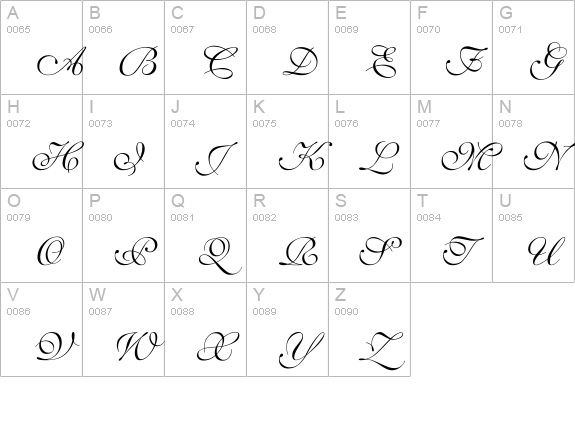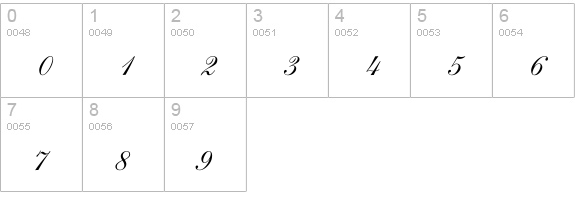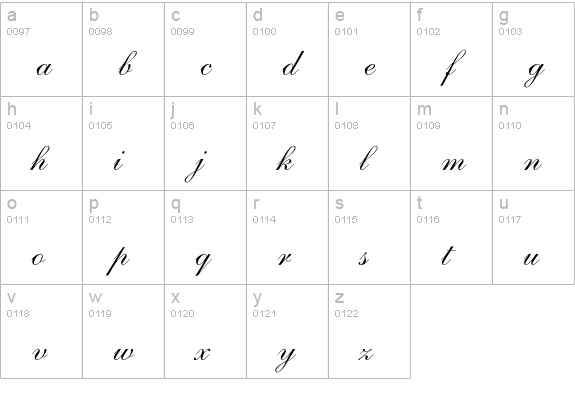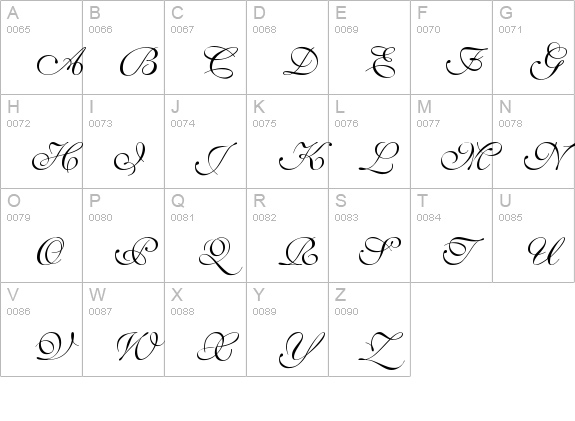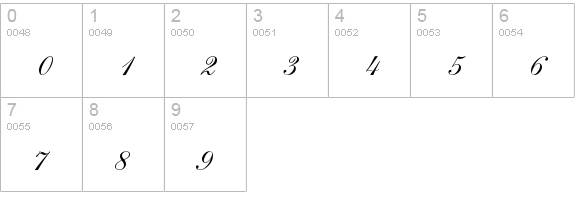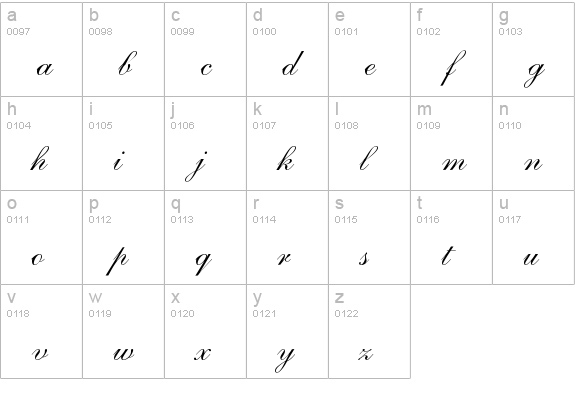
Volante Font Details
Volante font is a beautifully crafted typeface that is sure to captivate your audience. Its elegant and graceful curves make it perfect for various design projects, from branding to invitations and everything in between. With its unique and stylish letterforms, Volante font adds a touch of sophistication to any project. One of the best things about Volante font is that it is free! Yes, you heard it right. This exquisite font is freely available to download at FontsMarket.com. You can now enhance your designs without worrying about any additional costs. Designed with meticulous attention to detail, Volante font offers a harmonious balance between legibility and creativity. Its smooth and flowing lines create a sense of movement, giving your text a dynamic and modern look. Whether you're designing a logo, a poster, or a website, Volante font will effortlessly elevate your design to new heights. Not only does Volante font offer aesthetic appeal, but it also ensures readability across various platforms and sizes. Its versatile nature allows it to be used in both print and digital media, making it a versatile choice for all your design needs. With Volante font, you have the freedom to express your creativity without any limitations. Its wide range of weights and styles gives you the flexibility to experiment and create unique combinations that best suit your project's requirements. So why wait? Download Volante font for free at FontsMarket.com and unlock a world of possibilities for your designs. Whether you're a professional designer or a hobbyist, this font will undoubtedly become a valuable addition to your typography collection. Elevate your designs with Volante font and let your creativity soar.